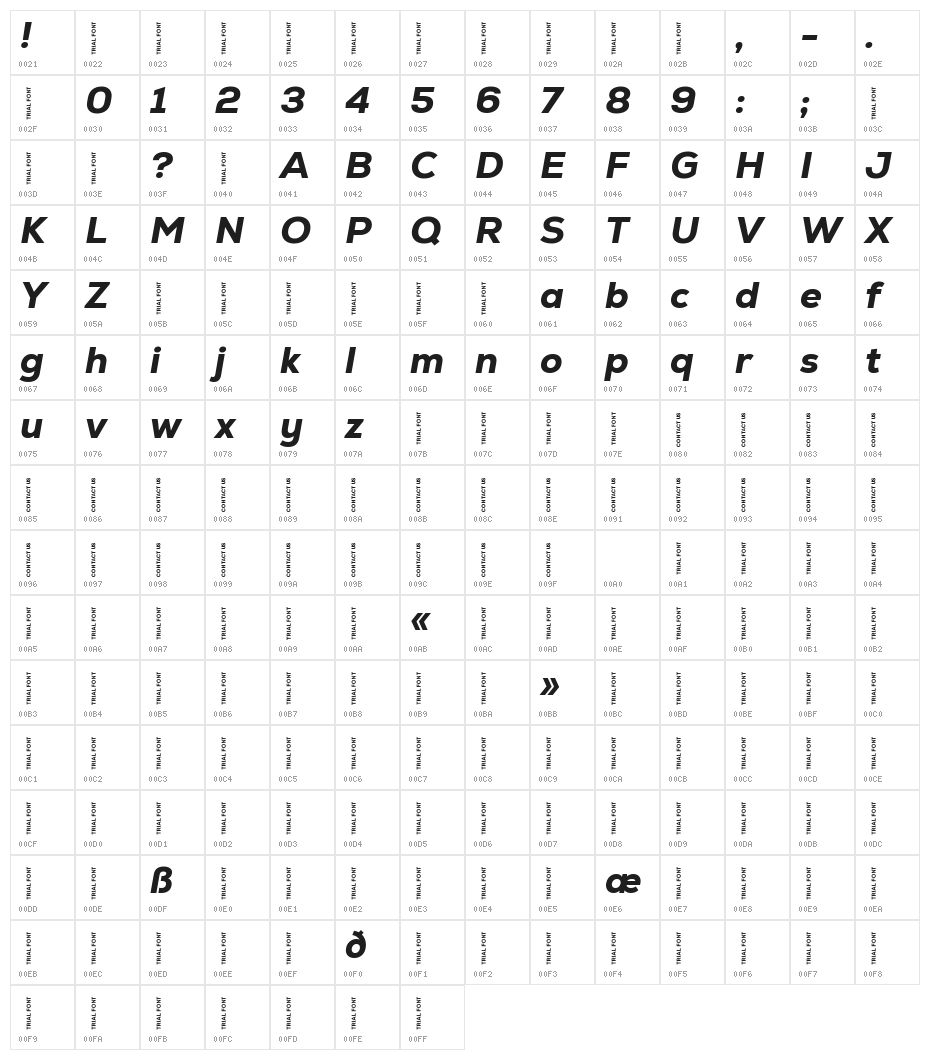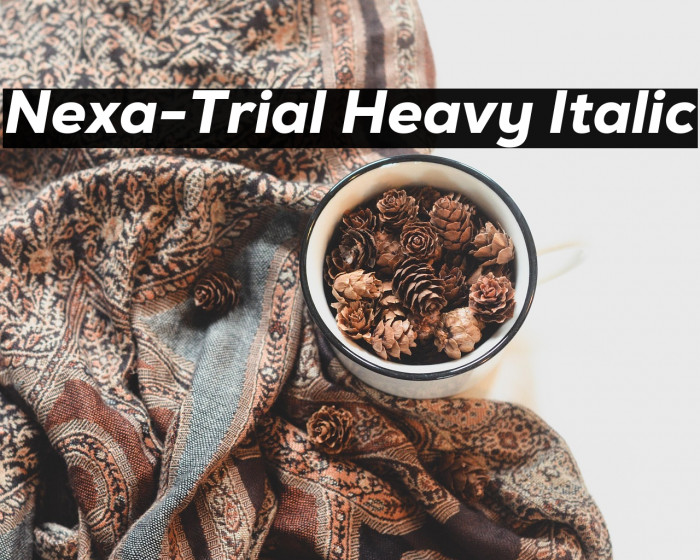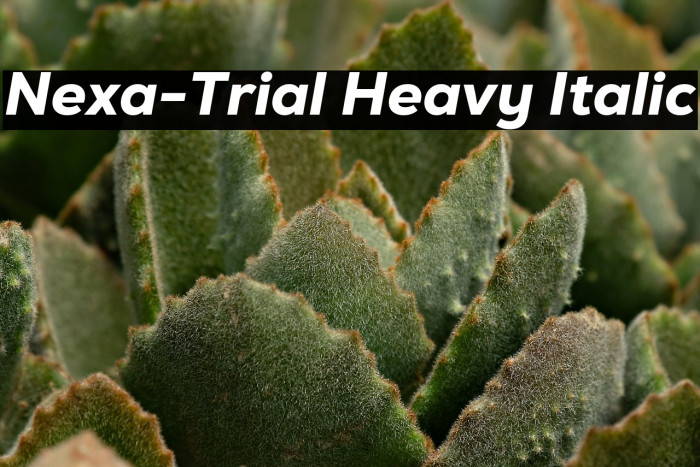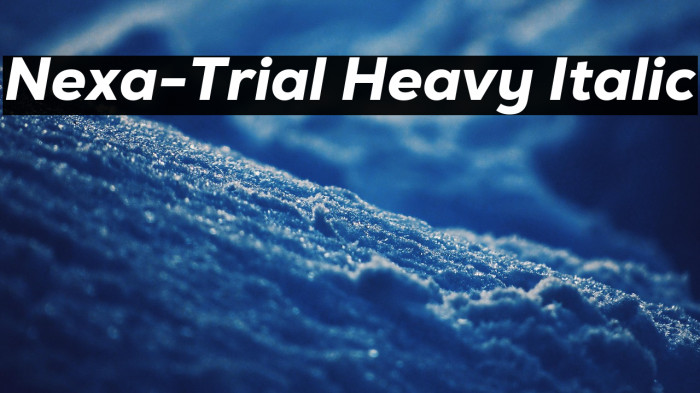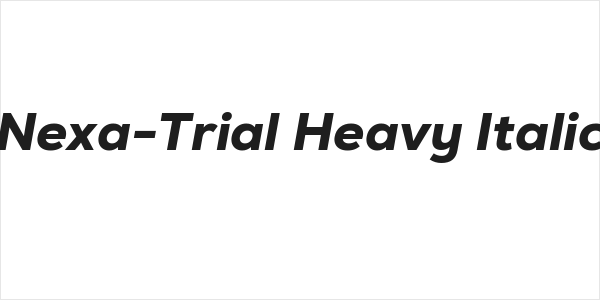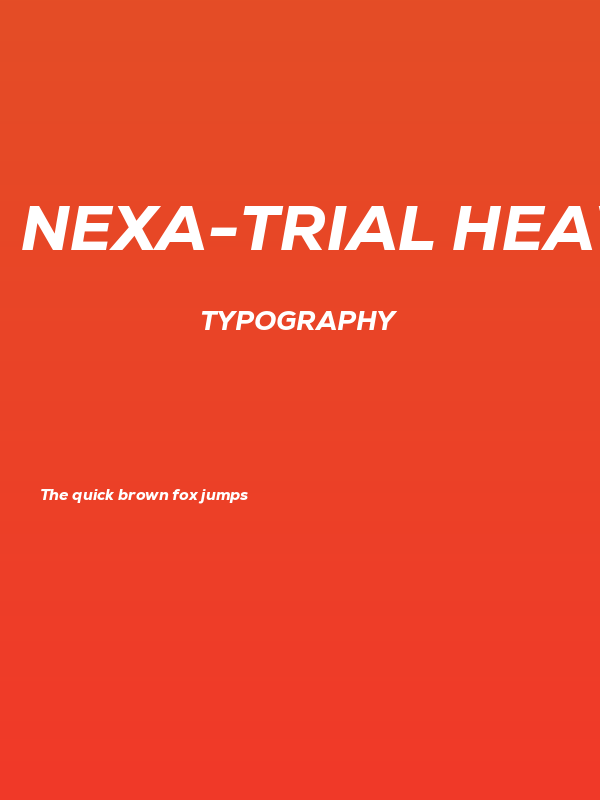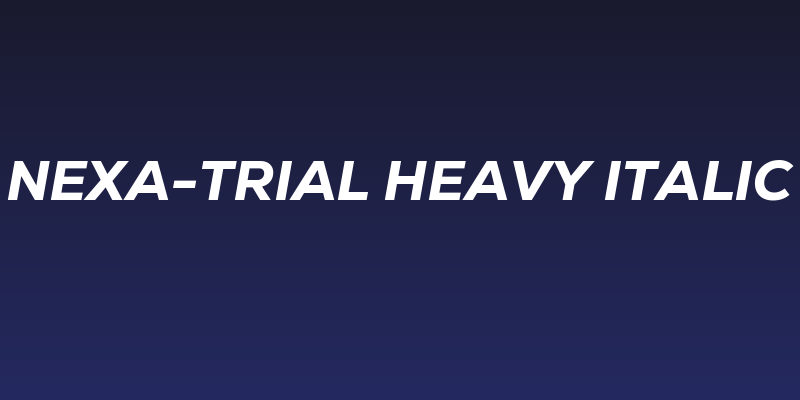
Nexa-Trial Heavy Italic Font
Nexa-Trial Heavy Italic Description
This font features a bold and dynamic appearance with a strong italic slant, giving it a sense of motion and energy. The characters are well-defined with a modern sans-serif style, characterized by clean lines and a uniform stroke width. The uppercase and lowercase letters maintain a consistent design, ensuring readability and visual appeal. The numerals are clear and distinct, matching the overall aesthetic of the font. Special characters are included, maintaining the same bold and italicized style, making this font versatile for various design needs.
| Use Case | Headlines, Logos, Advertising |
| Proposed Projects | Ideal for branding, advertising, headlines, and digital media projects that require a strong and modern look. |